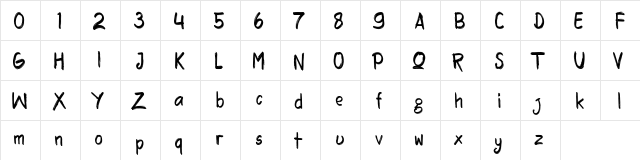
RASQUAKE demo Regular
Design Context for RASQUAKE demo Typeface
RASQUAKE demo is a composed and adaptable typeface that performs quietly and consistently across a wide range of design contexts.